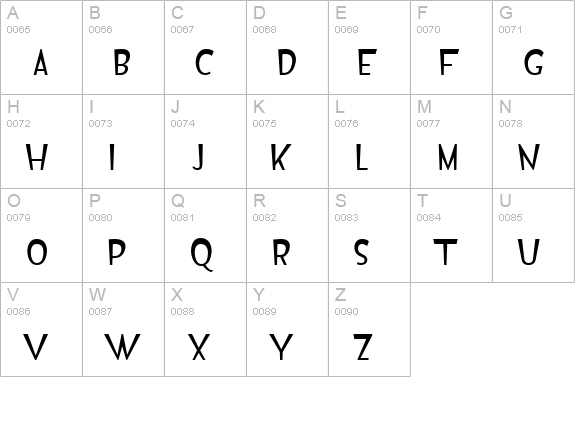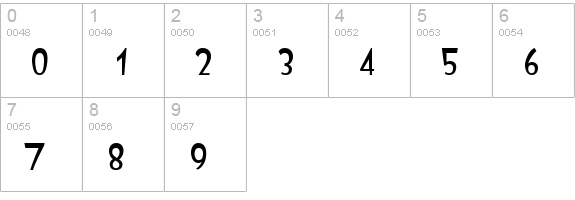
Isildur High Font Details
Introducing Isildur High font, a captivating typeface that effortlessly combines elegance with a touch of modernity. With its sleek lines and intricate details, Isildur High exudes a timeless charm that is sure to leave a lasting impression. This versatile font is perfect for a wide range of design projects, from branding and packaging to editorial layouts and social media posts. Its clean and legible characters make it easy to read, while its unique flourishes add a hint of artistic flair. Isildur High is not only visually appealing but also incredibly easy to use. Whether you're a professional designer or a creative enthusiast, you'll find this font a breeze to work with. Its extensive character set includes uppercase and lowercase letters, numbers, punctuation marks, and multilingual support, making it suitable for projects in various languages. What's more, Isildur High is freely available to download at FontsMarket.com, the go-to destination for font enthusiasts. This means that you can enhance your designs with this stunning font without breaking the bank. Simply head over to FontsMarket.com, locate Isildur High, and start incorporating its beauty into your next project. So why wait? Elevate your designs with Isildur High font and unlock a world of possibilities. Whether you're aiming for a sophisticated elegance or a contemporary edge, this font is here to bring your vision to life. Download Isildur High today and let your creativity soar to new heights.